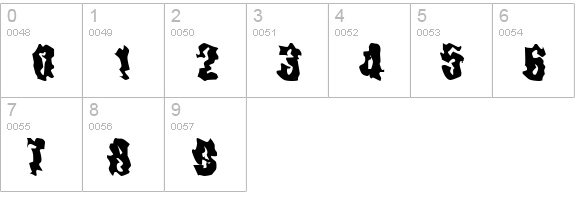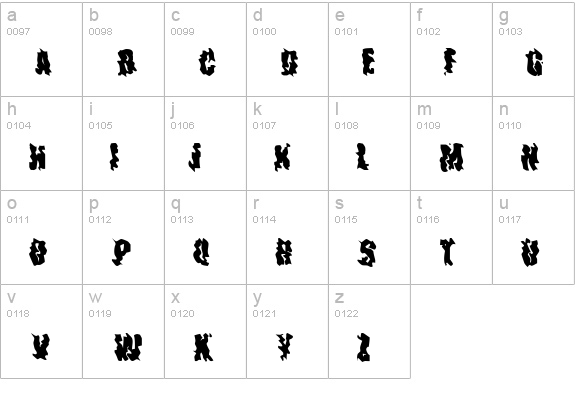
The Drips Font Details
Introducing The Drips font, a mesmerizing display typeface that effortlessly combines elegance with a touch of playfulness. This unique font is perfect for adding a creative flair to any design project, whether it's a logo, branding, packaging, or even a poster. The Drips font captivates with its fluid and dynamic letterforms, giving your text a sense of movement and energy. Each character is meticulously crafted, featuring bold strokes and subtle curves that create a harmonious balance between sophistication and modernity. What sets The Drips font apart is not just its aesthetic appeal, but also its versatility. It adapts effortlessly to various design styles, making it suitable for a wide range of applications. Whether you're aiming for a bold and edgy look or a more refined and elegant feel, this font delivers every time. And the best part? The Drips font is absolutely free! That's right, you can download this incredible typeface at no cost from FontsMarket.com. Now you can elevate your designs without breaking the bank. It's an opportunity you don't want to miss! So, why wait? Embrace the creativity and originality offered by The Drips font. Let your designs come alive with its captivating charm and make a lasting impression. Download it now for free at FontsMarket.com and let your imagination run wild!